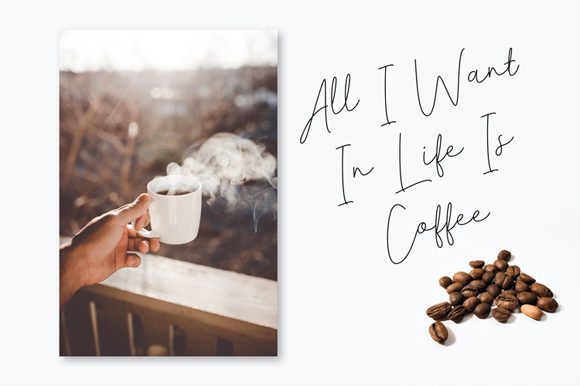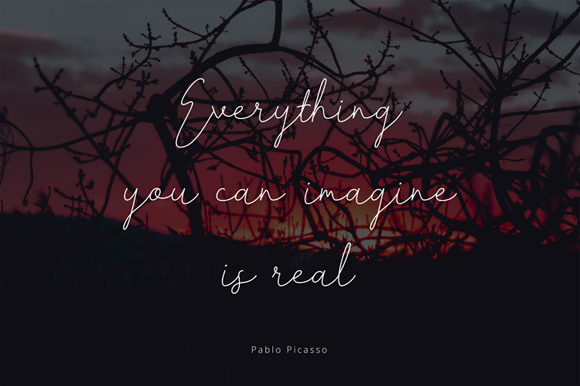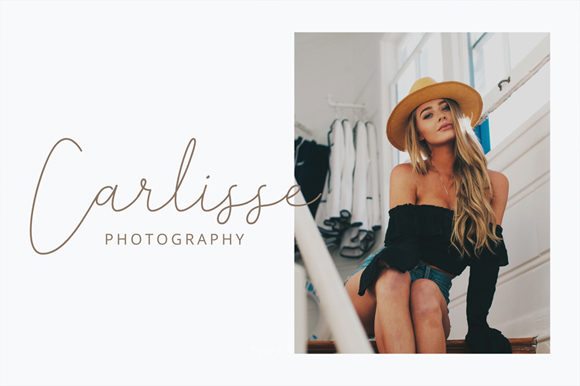
About Asmara Font
Asmara is a beautiful handwritten font. It has a clean, thin and smooth vibe and it will be a hit for any design that you want to add it to.
It is suitable for any branding, product packaging, invitation, quote, t-shirt, label, poster, logo that you wish to develop.